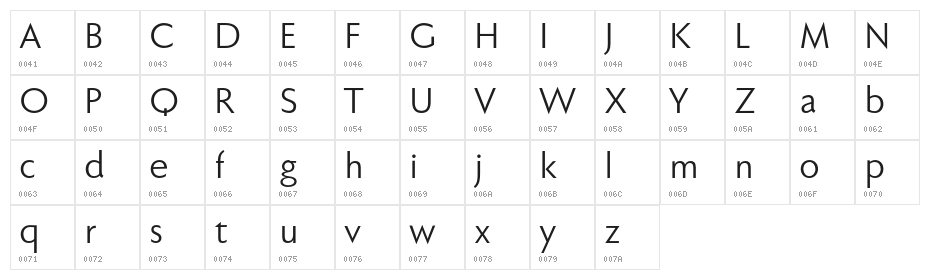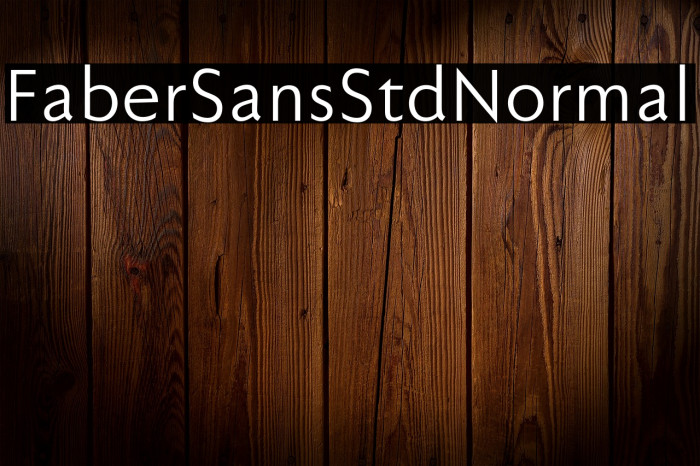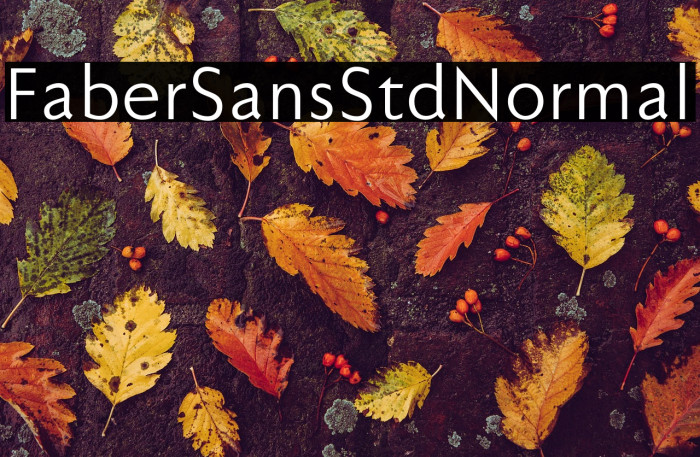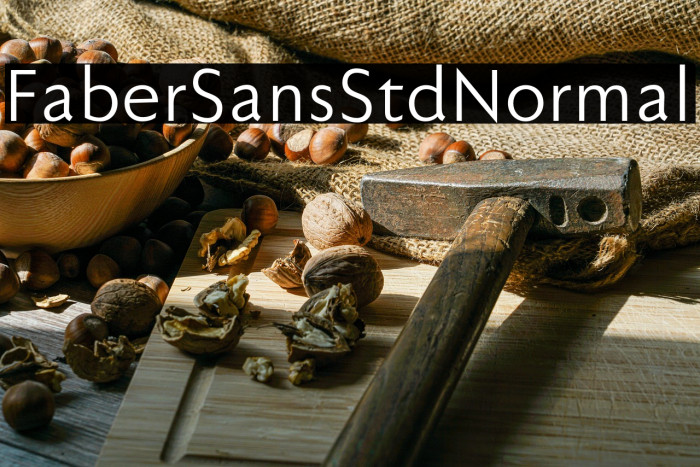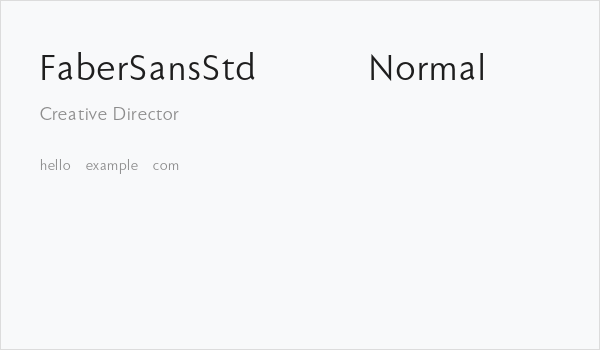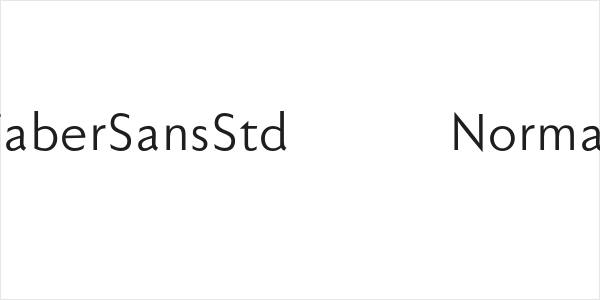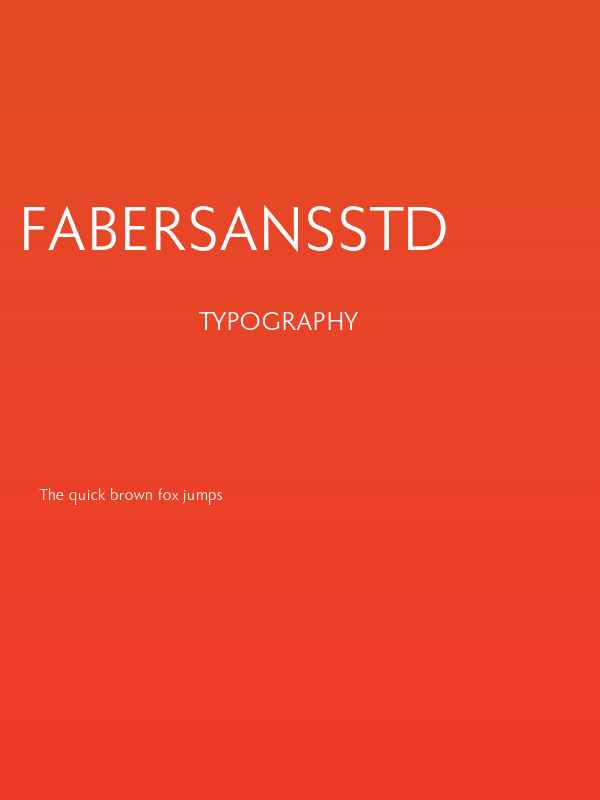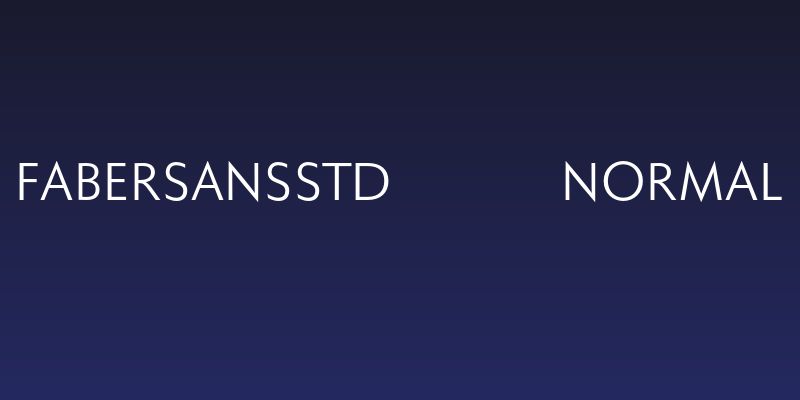
FaberSansStd-55Normal Font
FaberSansStd-55Normal Description
This font exhibits a clean and modern sans-serif style, characterized by its simplicity and clarity. The letterforms are well-proportioned with a uniform stroke width, contributing to its legibility. The design is minimalistic, with smooth curves and straight lines that create a harmonious balance. The uppercase letters are slightly taller than the lowercase, providing a subtle distinction. Overall, the font conveys a sense of professionalism and elegance, making it suitable for a wide range of applications.